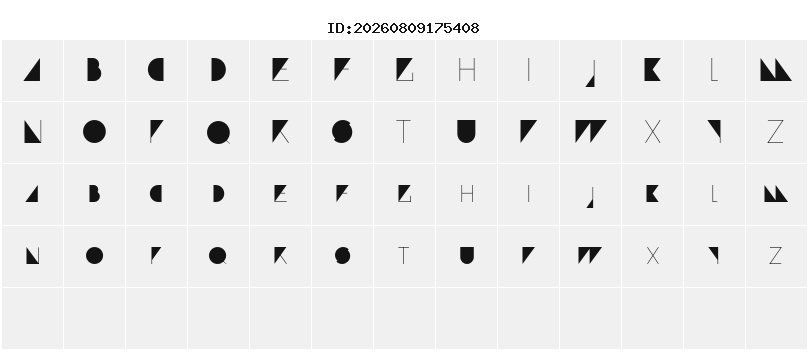
• Font Name: Paranoid
• Designer: LOKi design
About Paranoid.otf
Paranoid.otf is a modern, elegant sans-serif font designed for ultimate readability and visual harmony. Perfect for branding, headlines, web design, and print materials.